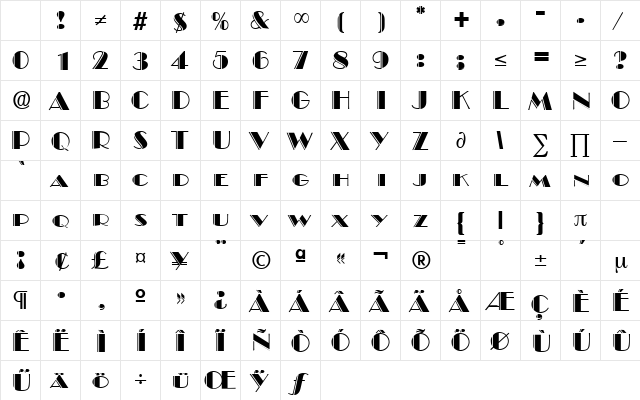
Complete BroadwayDeko DB Medium glyph index. Displaying only characters natively supported by BroadwayDeko DB Medium font.
BroadwayDeko DB is a composed and adaptable typeface that performs quietly and consistently across a wide range of design contexts.